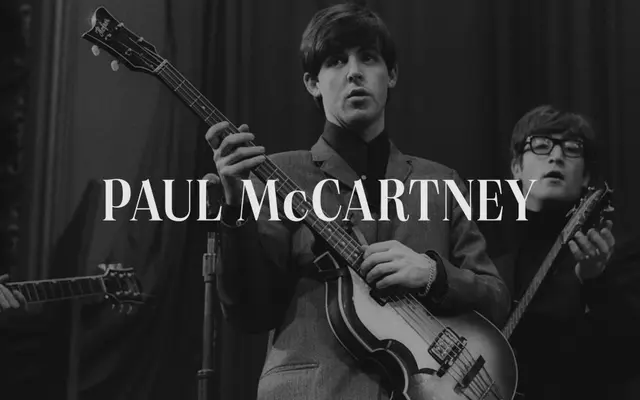
PP Neue World
Pangram Foundry · Pangram Foundry
A super-serif with six widths and eight weights, inspired by vintage display types squeezed to fit the page.
PP Neue World is a free-to-try super-serif designed as a width system for headlines and posters. Six widths, from Super Condensed to Extended, each carry eight weights for 48 cuts plus a variable font. The thinner weights are soft and refined, the heavy ones lean into hard contrast and bold statements, and the whole family is drawn to mimic vintage display serifs that were squeezed to fit a given print measure.
Display serif inspired by vintage display types manually squeezed to fit print sizes; six widths and eight weights for 48 cuts plus a variable font. Free to try.